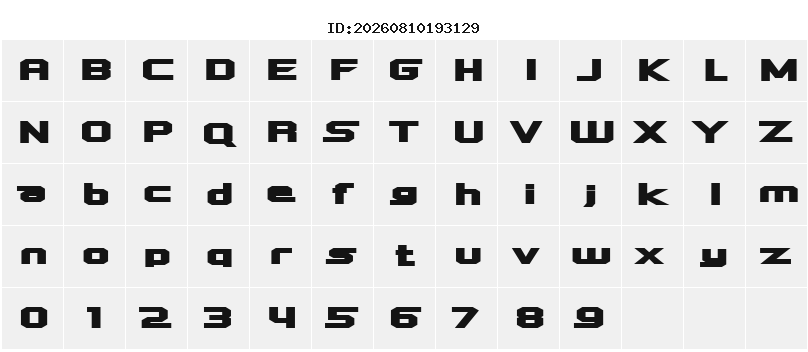
Quadrangle.ttf is a modern, elegant sans-serif font designed for ultimate readability and visual harmony. Perfect for branding, headlines, web design, and print materials.